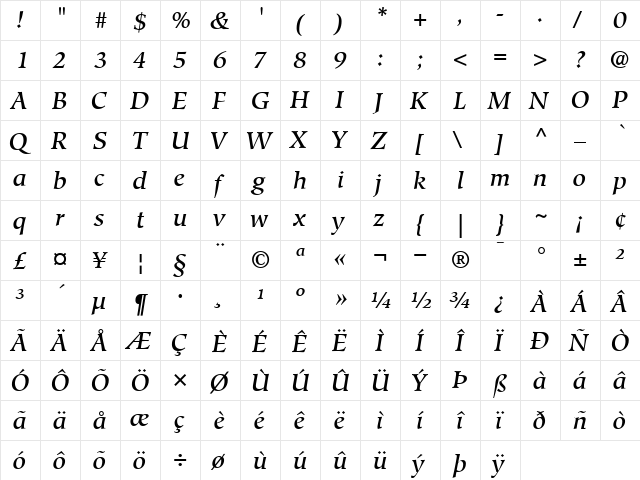
Hiroshige-Medium MediumItalic Font Preview
Hiroshige-Medium MediumItalic
Hiroshige-Medium MediumItalic Font Details
Design Context for Hiroshige-Medium Typeface
Hiroshige-Medium is a composed and adaptable typeface that performs quietly and consistently across a wide range of design contexts. The dynamic lean of this cut emphasises speed and emphasis in any layout.
Pro Tip: Try Hiroshige-Medium for annotation and caption copy alongside an upright companion — the contrast in angle creates a dynamic but ordered typographic system.